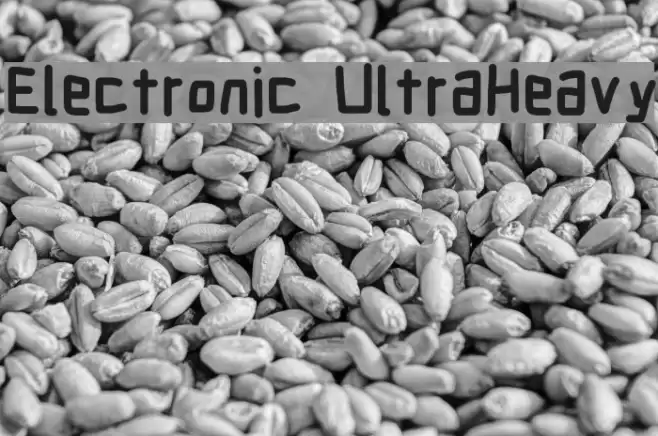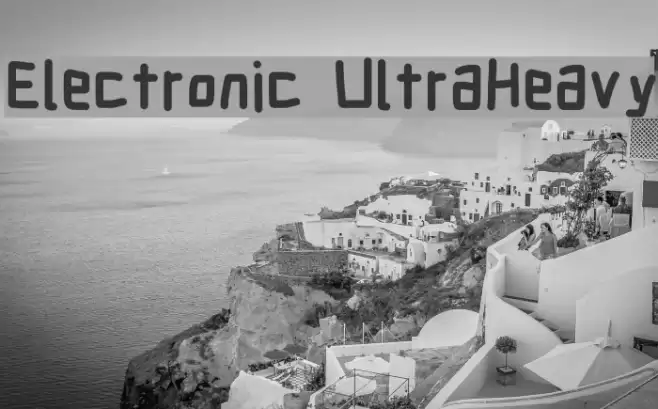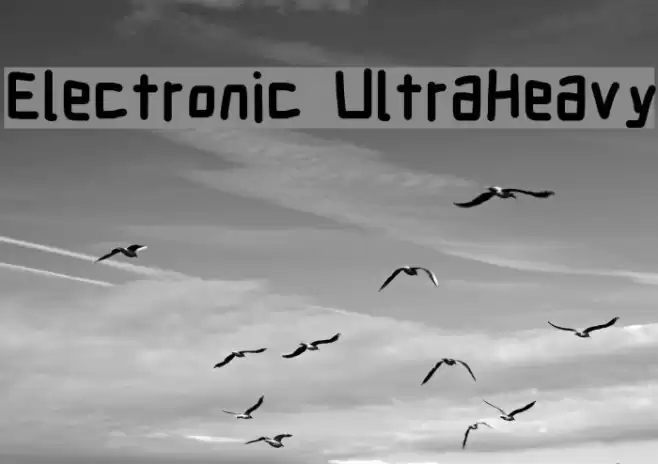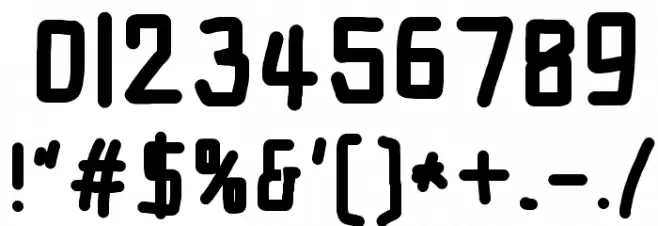
Electronic UltraHeavy Font
Electronic UltraHeavy Description
This font features a bold and heavy design with a distinctly modern and electronic feel. The characters are rounded and thick, giving them a substantial presence on the page. The uppercase letters are uniform in height, while the lowercase letters maintain a consistent baseline, providing a cohesive look. The numerals are equally bold, ensuring readability and impact. Special characters are designed with the same weight and style, making them blend seamlessly with the rest of the font. The overall appearance is futuristic and tech-inspired, suitable for projects that require a strong visual statement.
A bold, modern font with a heavy, electronic style from Uncategorized fonts.
- Proposed Projects: Ideal for technology branding, video game titles, futuristic posters, and digital interfaces.